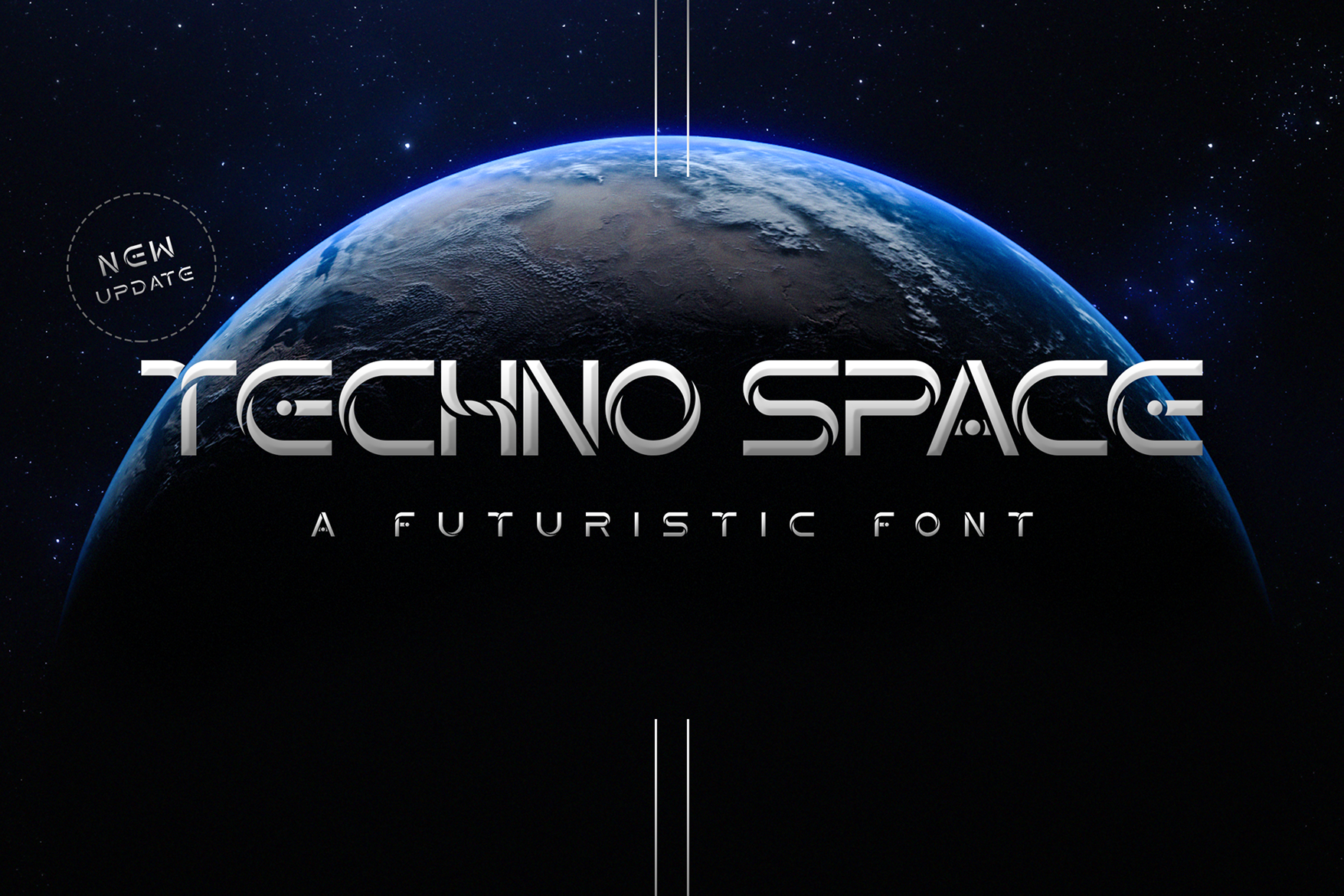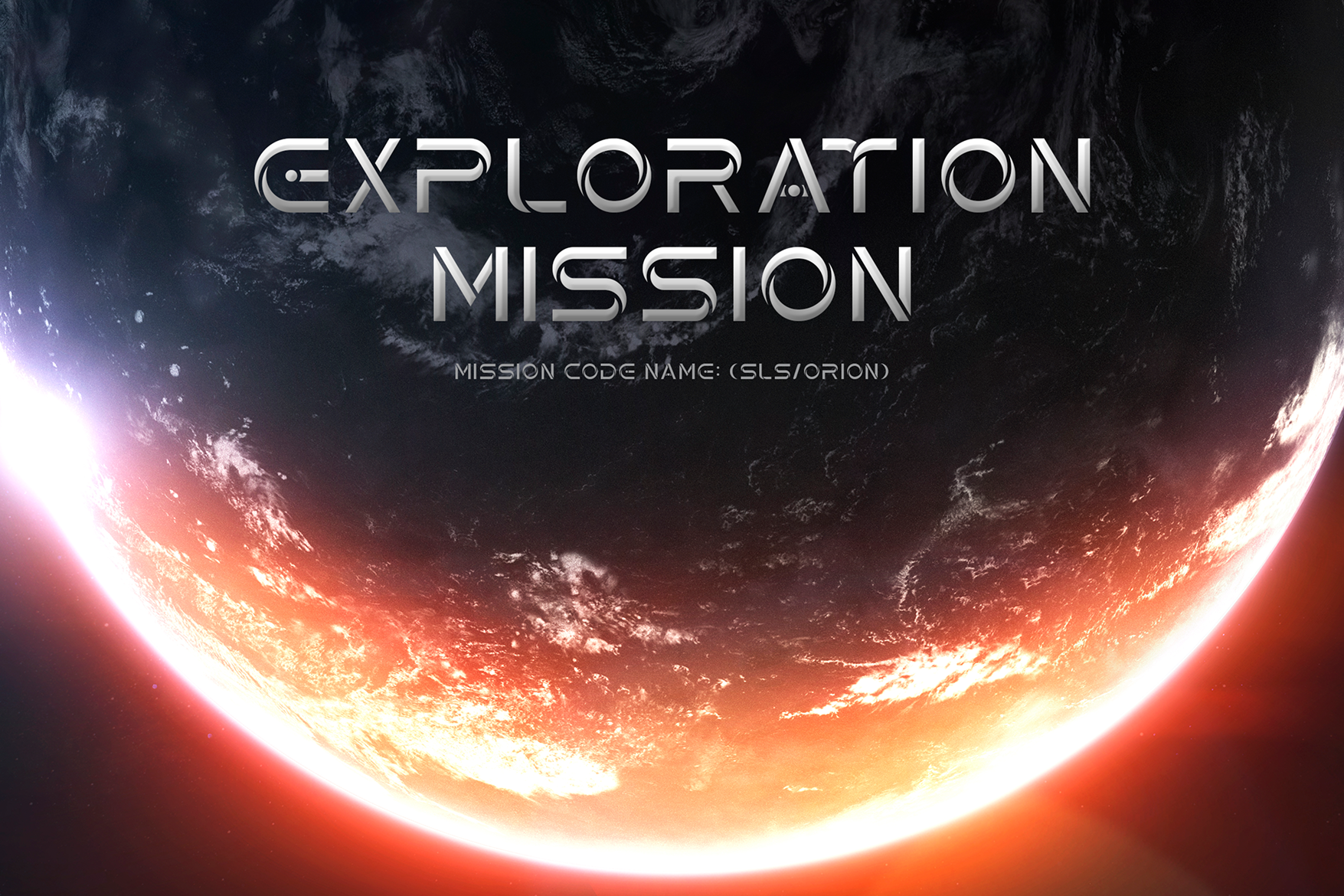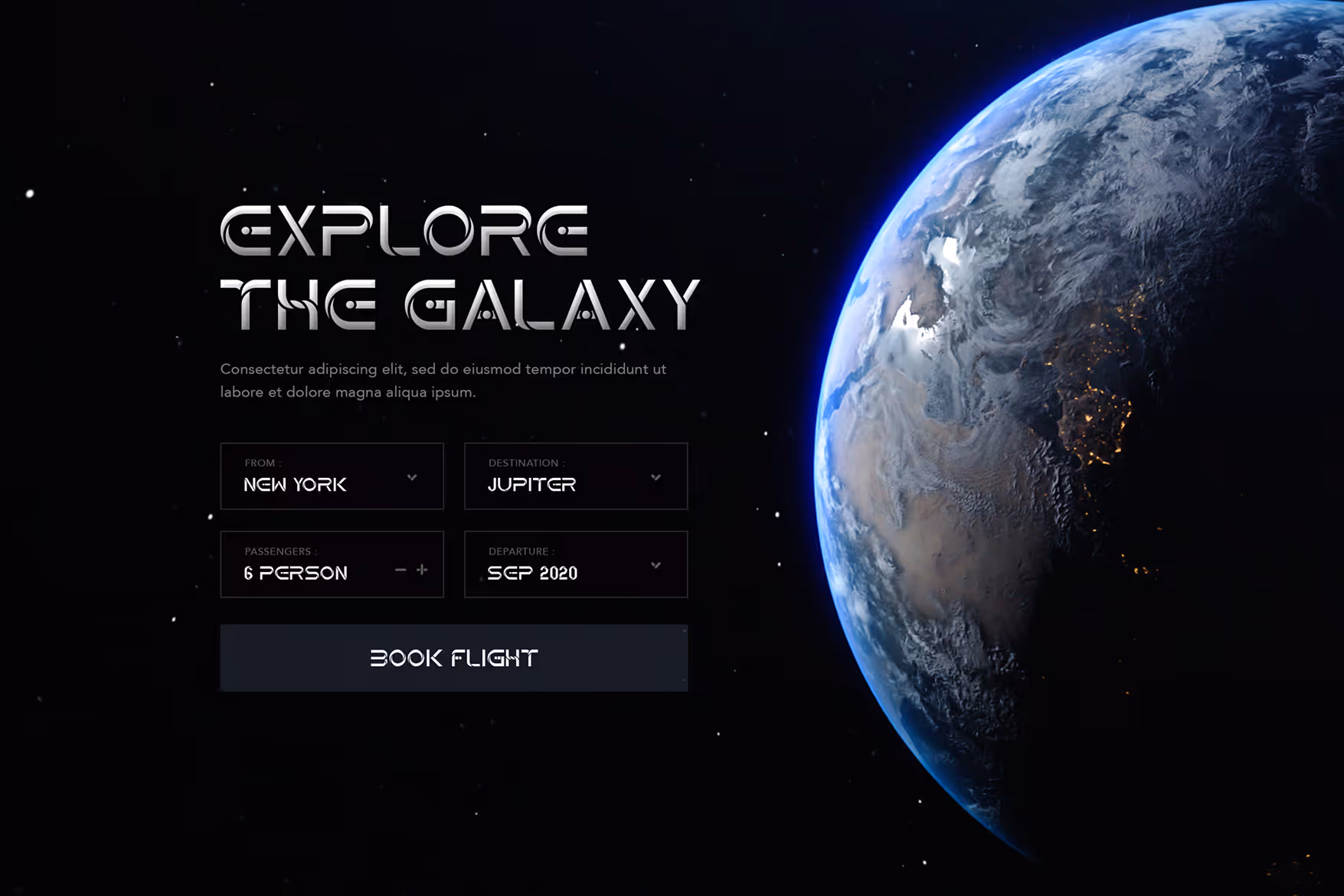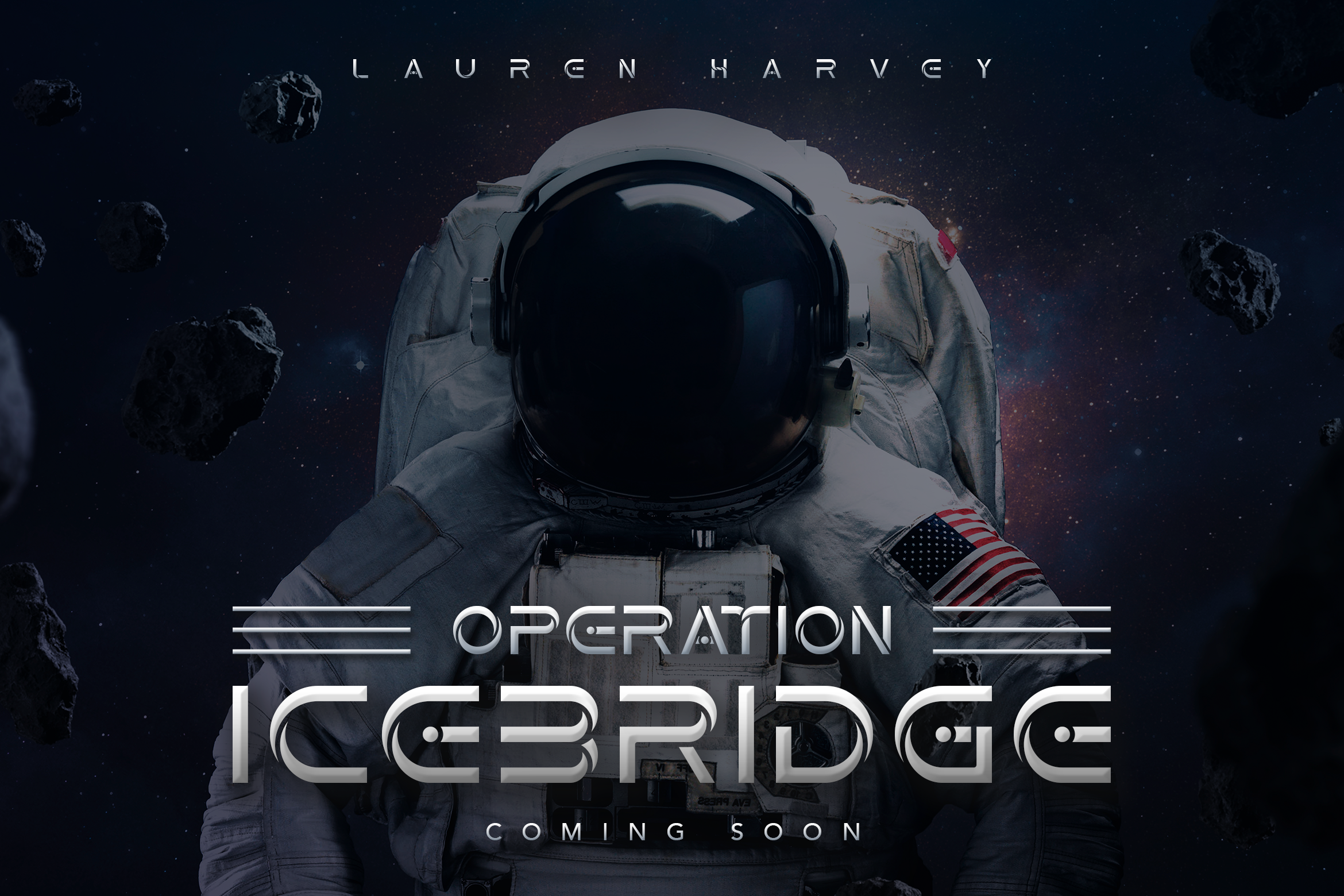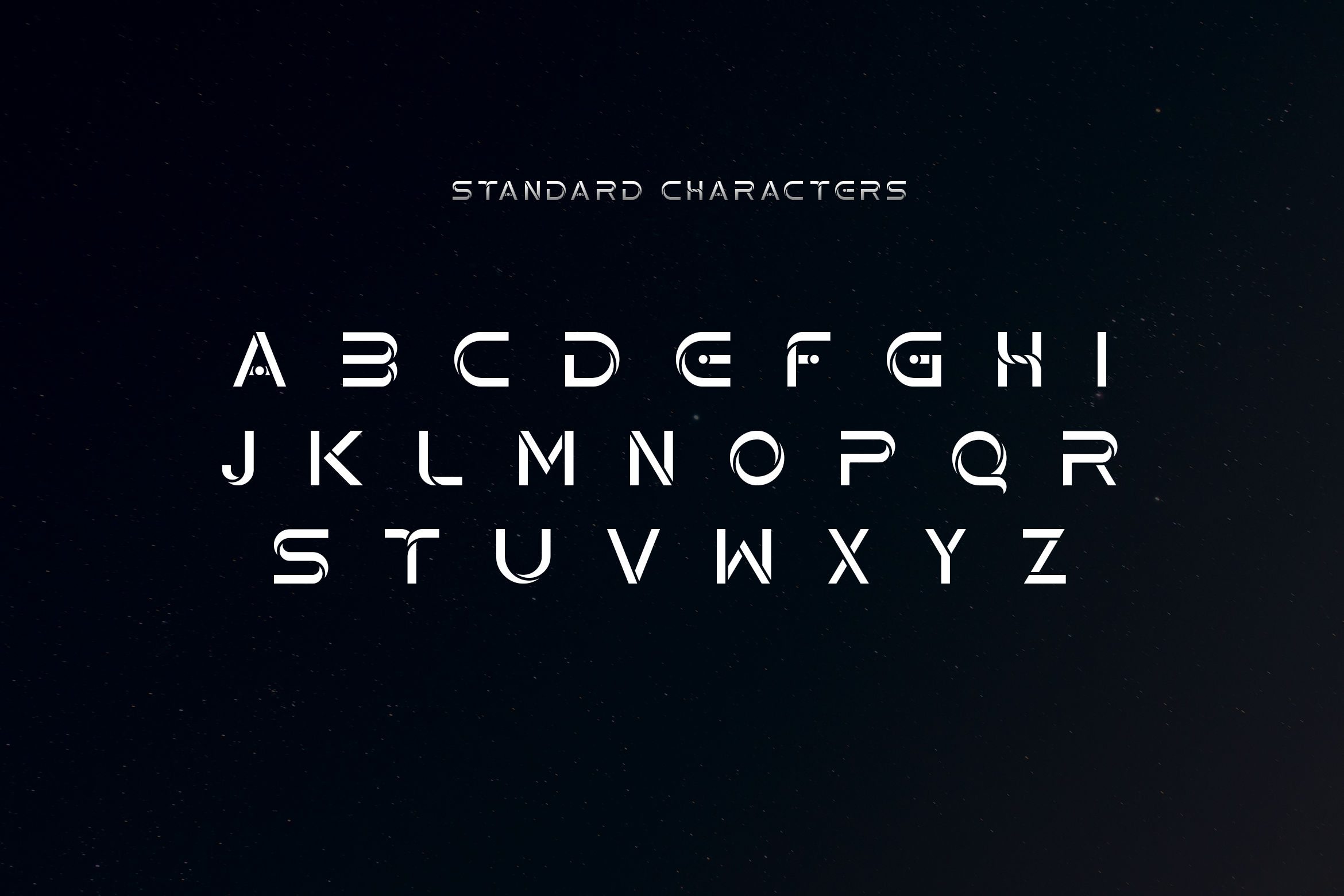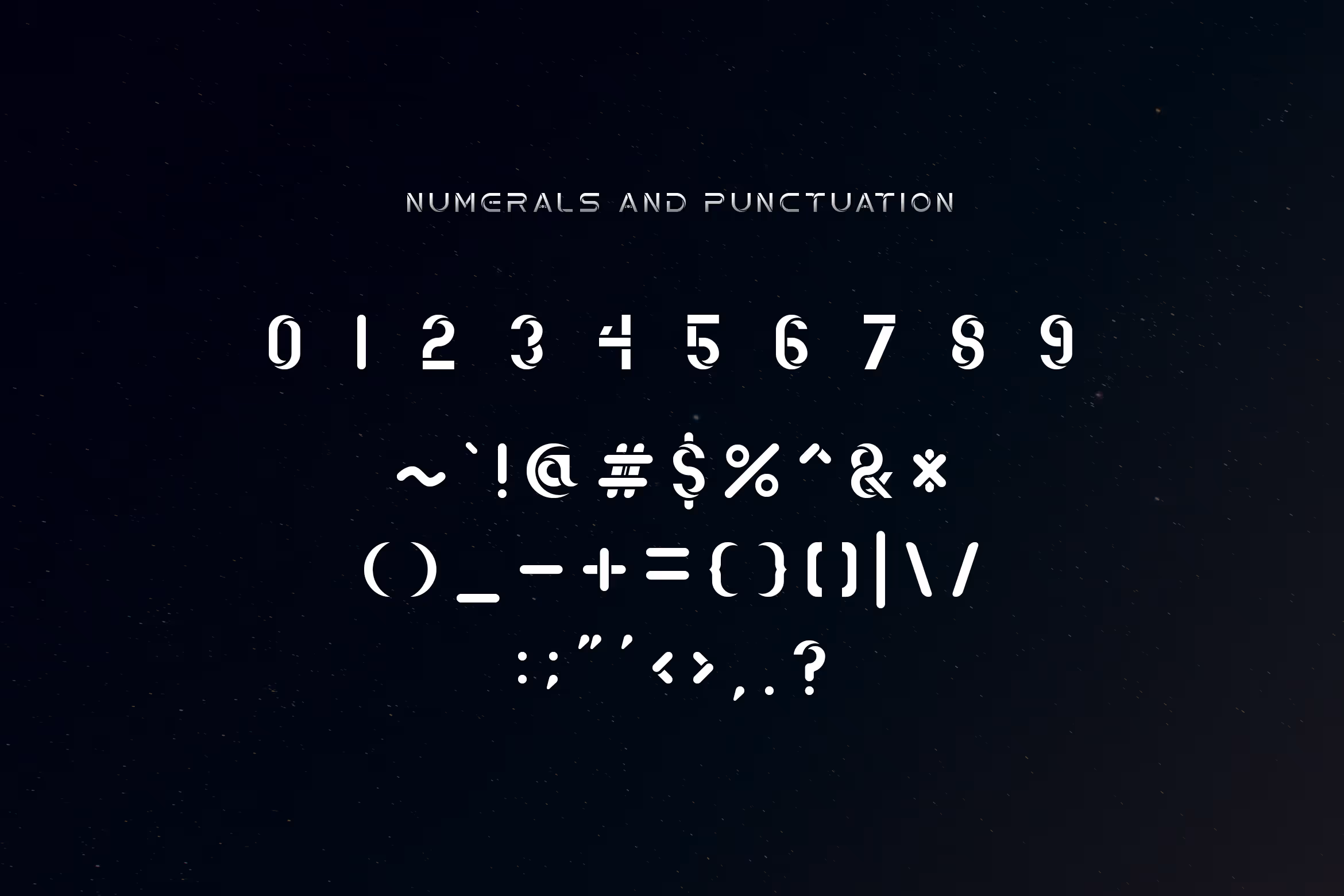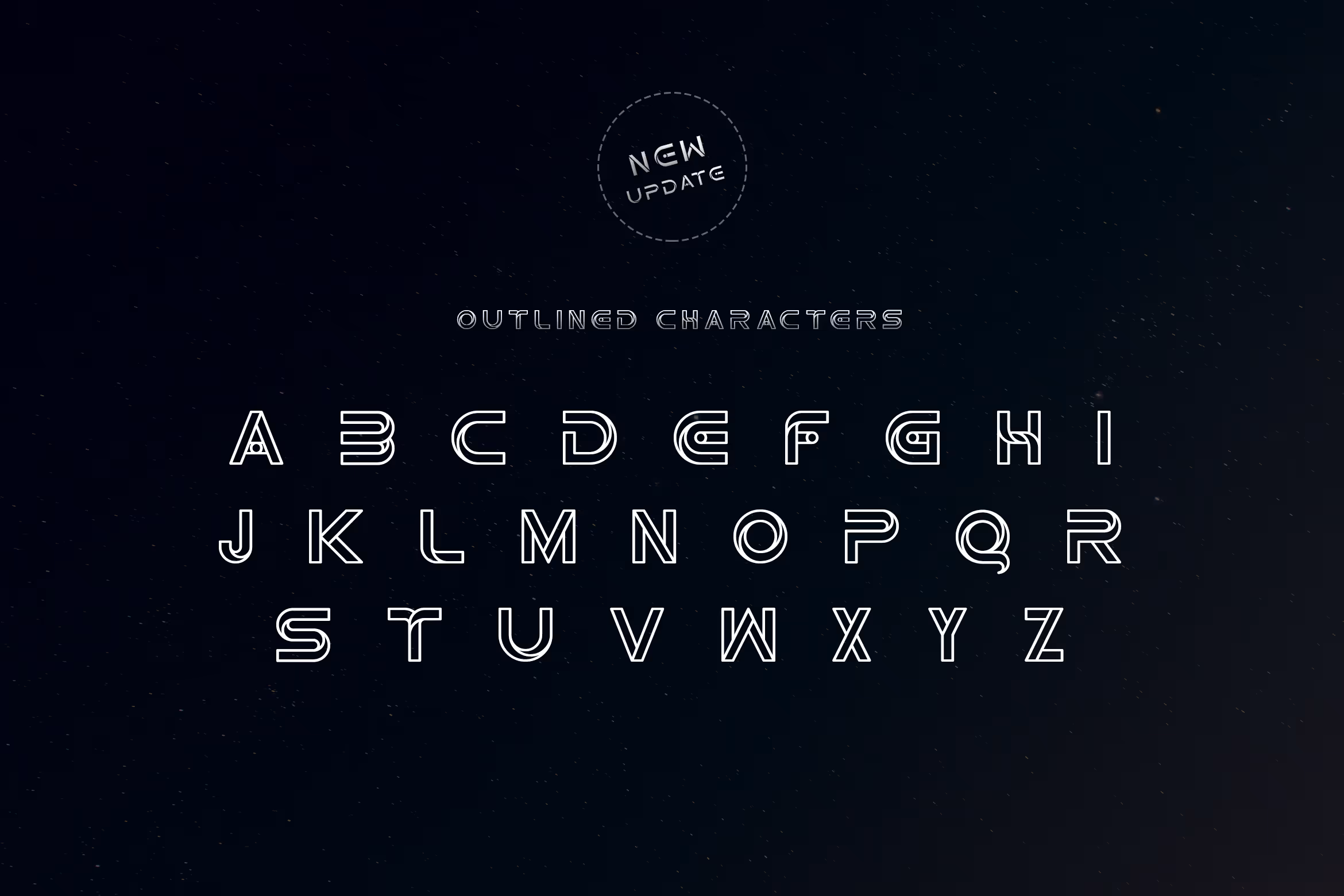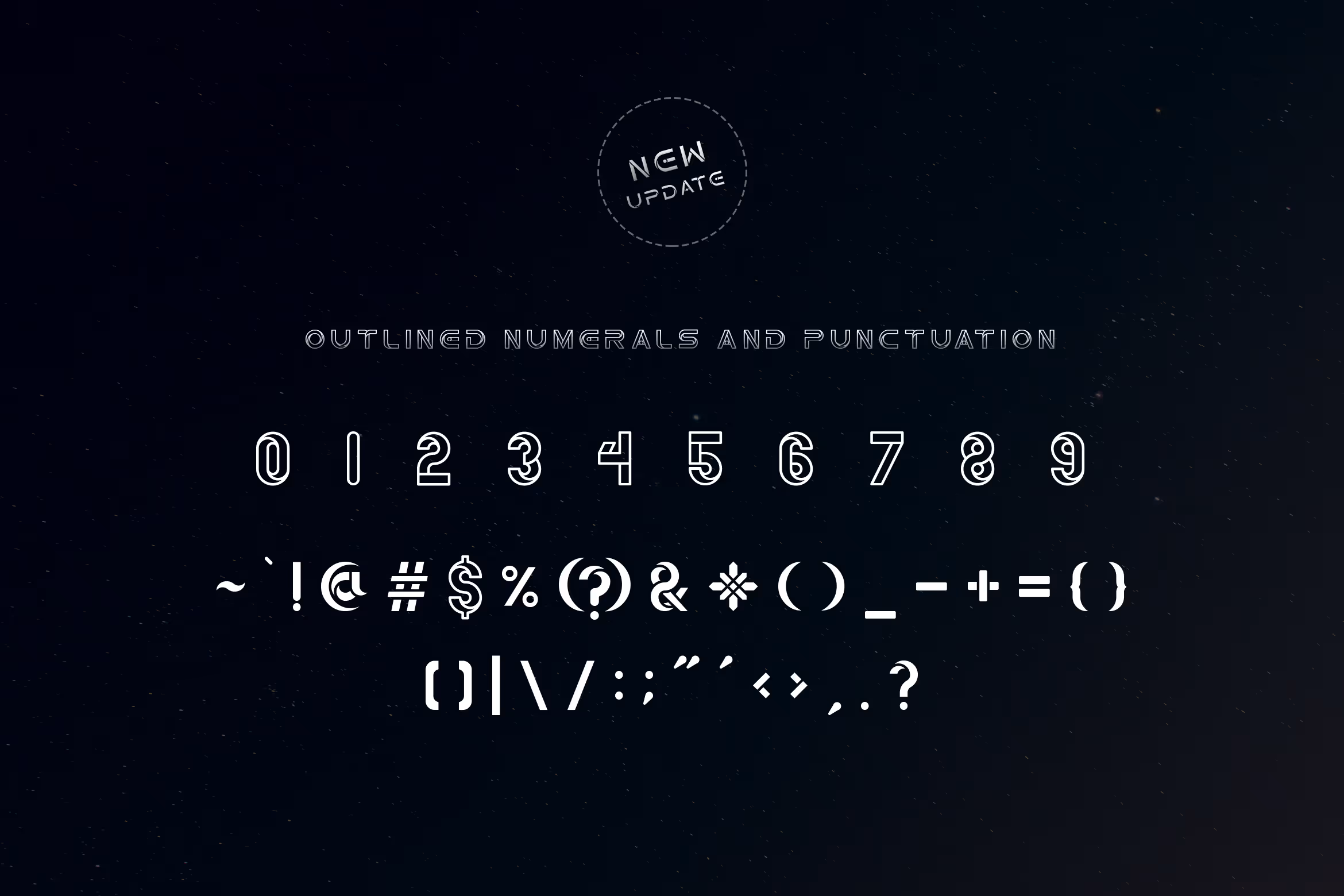
Bring the future to your creation by using Techno Space Futuristic Font to create a more suitable atmosphere of modern technology and outer space themes, such as in futuristic movie title, poster, book cover, visual graphic, text display and many more. It is also suitable for a stylish overlay text to any background image or formal text.
Once you’ve purchased this font, you’ll get a set of standard characters from A to Z in upper and lower case, punctuation and all numbering. If you buy it right now, you also will get the latest update of this product: outlined characters, number and punctuation to the collection of your font.